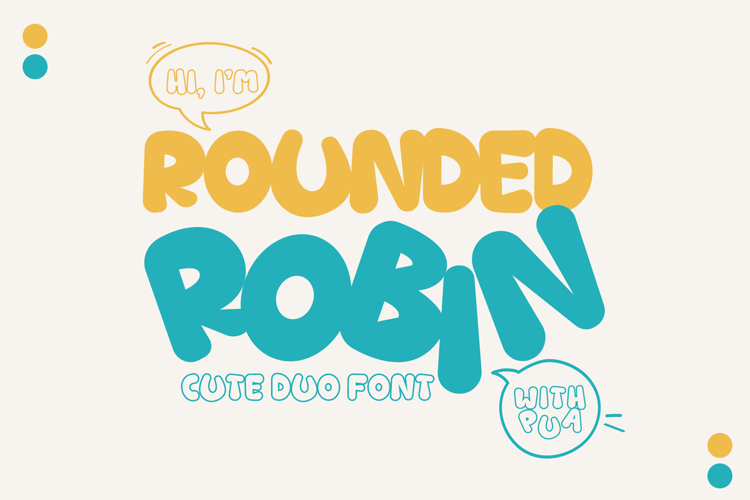
Rounded Robin - Playful Display Font | Duo Font | Outlined
Rounded Robin is a delightful display font that captures the essence of fun and creativity. With its smooth, rounded edges and cheerful character, this font is perfect for adding a playful touch to any design project.
Charming and Whimsical: Rounded Robin’s friendly and approachable design makes it ideal for children’s products, party invitations, or any project that aims to evoke joy and excitement. Its unique charm draws the eye and invites engagement.
✏️ Versatile Styles: This font comes with an outline style and two sets of alternate styles, allowing for endless customization. Whether you want a bold statement or a more understated look, Rounded Robin can easily adapt to your needs.
✨ Creative Expression: The playful nature of Rounded Robin encourages creativity. Use it to craft eye-catching headlines, playful logos, or vibrant social media graphics that stand out in any crowd.
Rounded Robin is the perfect choice for designers seeking a fun, versatile font that adds a touch of whimsy to their work. Let your creativity flow with this charming display font!